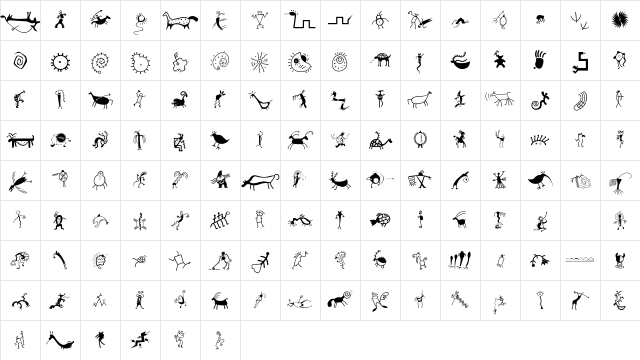
Complete MiniPics RedRock glyph index. Displaying only characters natively supported by MiniPics RedRock font.
MiniPics is a composed and adaptable typeface that performs quietly and consistently across a wide range of design contexts.